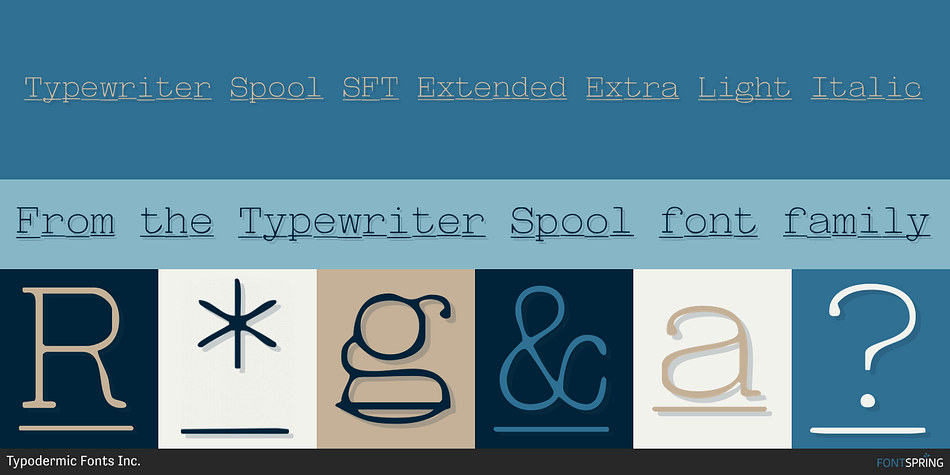
Typewriter Spool SFT Extended Extra Light Italic
Designed by Ray Larabie, Typewriter Spool is a typewriter font family. This typeface has one hundred and twenty-two styles and was published by Typodermic Fonts Inc.
Introducing Typewriter Spool, a typeface collection inspired by the timeless beauty of the Underwood No. 5, and carefully crafted for the modern designer who appreciates the artistry of typewritten text. With 122 fonts to choose from, Typewriter Spool offers a stunning variety of styles that are sure to add an air of erudite elegance to any project.
One of the standout features of Typewriter Spool is its incredible attention to detail. Each letterform has been meticulously modeled after the classic manual typewriters of the twentieth century, resulting in a collection of fonts that exude a sense of refined authenticity. And with seven weights, three widths, and underline available in the clean and precise Typewriter Spool CLN, you’ll have all the options you need to create polished and professional-looking text.
For those seeking a more realistic typewriter effect, the smooth and slightly misaligned Typewriter Spool SFT is an excellent choice. With six weights, three widths, and an automatic variation shuffle for the alphanumeric characters, this font offers a convincing manual typewriter appearance that will make your work truly stand out.
Looking for something a little more unique? Typewriter Spool XRX offers a fascinating blend of typewritten text with the aesthetic of multiple generations of faxing and photocopying. And with six weights, three widths, underline, and a variation shuffle effect, you’ll have endless possibilities for creating eye-catching designs.
For those seeking a touch of vintage charm, Typewriter Spool RUF offers a worn ink ribbon texture and clunky misalignment that harks back to the days of classic typewriters. And with four weights, underline, and a variation shuffle effect, you’ll have everything you need to create stunningly authentic-looking text.
All Typewriter Spool fonts include fractions, punctuation, and mathematical symbols, as well as smart quotes for added convenience. With its wide range of weights, widths, special effects, and language support, Typewriter Spool is truly the last typewriter typeface you’ll ever need to buy. So why settle for ordinary typography when you can elevate your work to the level of artistry with Typewriter Spool? Try it today and experience the difference for yourself.